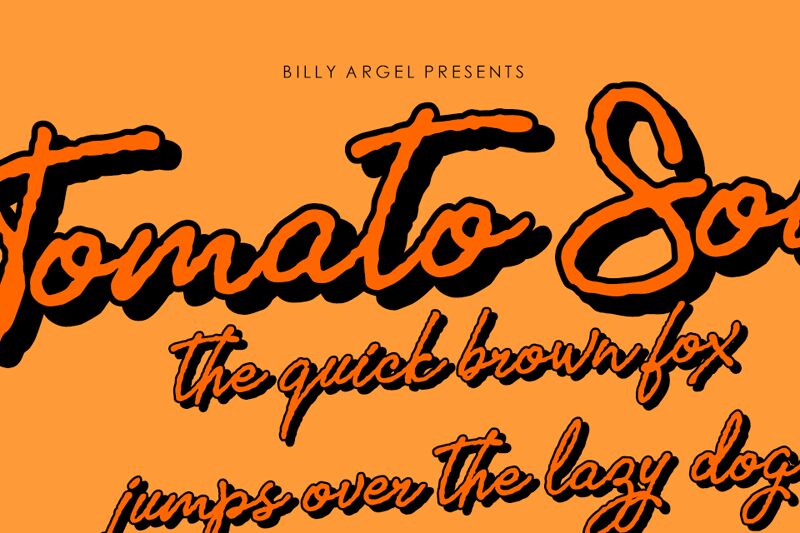
Tomato Soup Italic is a playful handwritten font by Billy Argel. With its light weight and italic style, this font is perfect for adding a personal touch to projects such as greeting cards, invitations, and social media graphics. Whether you're looking to create a whimsical or casual design, Tomato Soup Italic is a fun and versatile typeface to consider.
Two layered fonts, italic and shadow.
Präsentation und Schriftprobe von TomatoSoupPersonalUse-Italic
Tomato Soup Personal Use